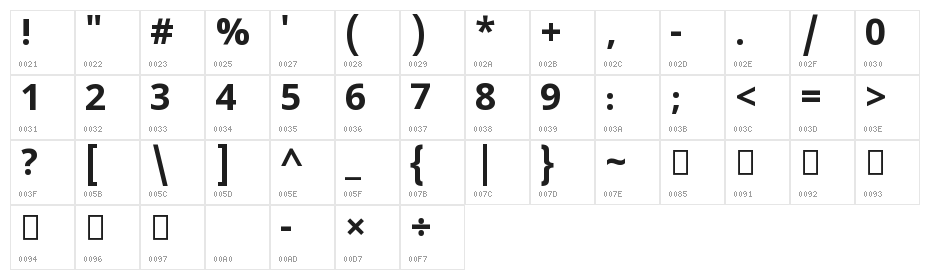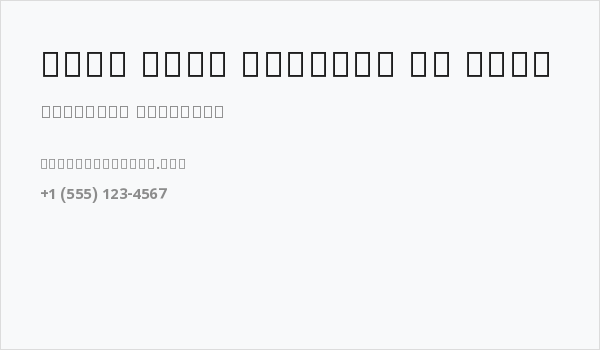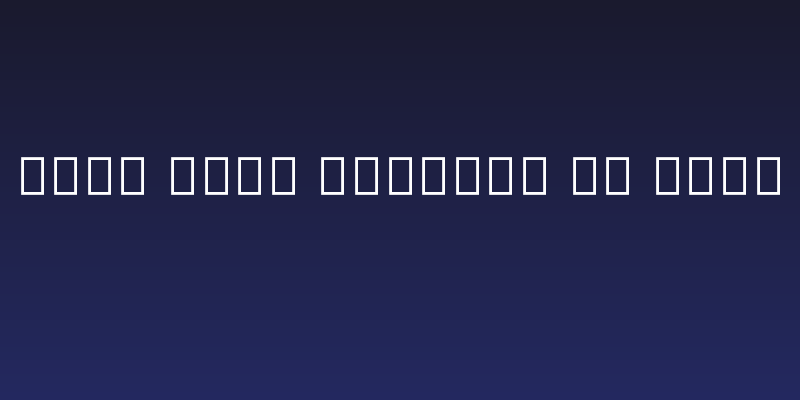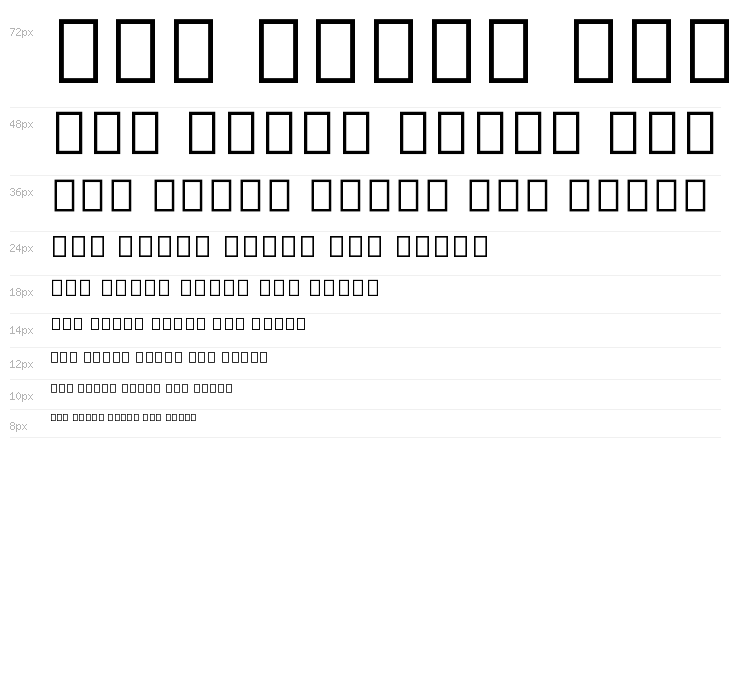
Noto Sans Kannada UI Bold Font
Noto Sans Kannada UI Bold Description
This font features a bold and clean design, ideal for clear readability and modern aesthetics. The characters are well-defined with a uniform stroke width, providing a consistent and balanced appearance. The numerals and special characters are distinct and easy to distinguish, making them suitable for various applications. The overall style is contemporary, with a focus on functionality and simplicity. The font's bold weight ensures that it stands out, making it perfect for headlines and attention-grabbing text.
| Use Case | Headlines, User Interfaces, Digital Content |
| Proposed Projects | Ideal for user interfaces, digital content, headlines, and signage where clarity and impact are essential. |